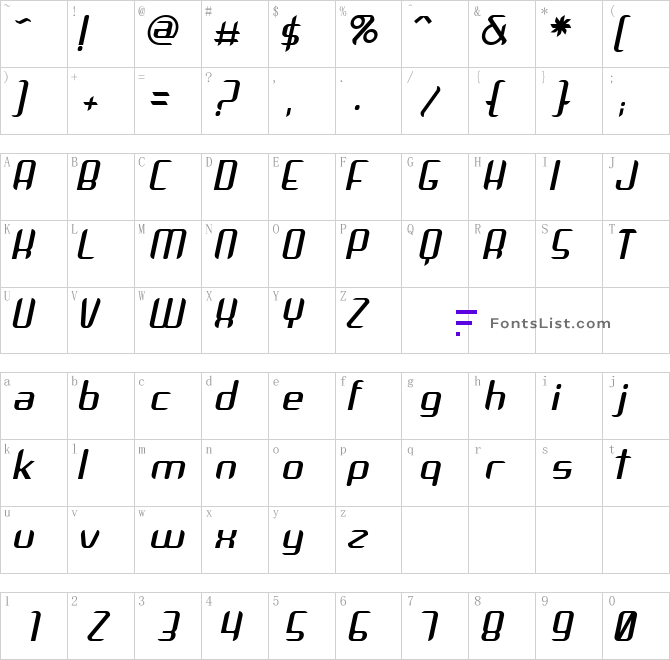
- Font Name:Arbeka
Arbeka-Italic.ttf is a very beautiful artistic font, Arbeka-Italic.ttf is widely used in the design and printing of various books and pictures,Arbeka-Italic.ttf has a strong visual impact,Arbeka-Italic.ttf is a commonly used font in newspapers, magazines and books, and is used in posters, e-commerce Poster design, store design, logo design, font design and other fields.Arbeka-Italic.